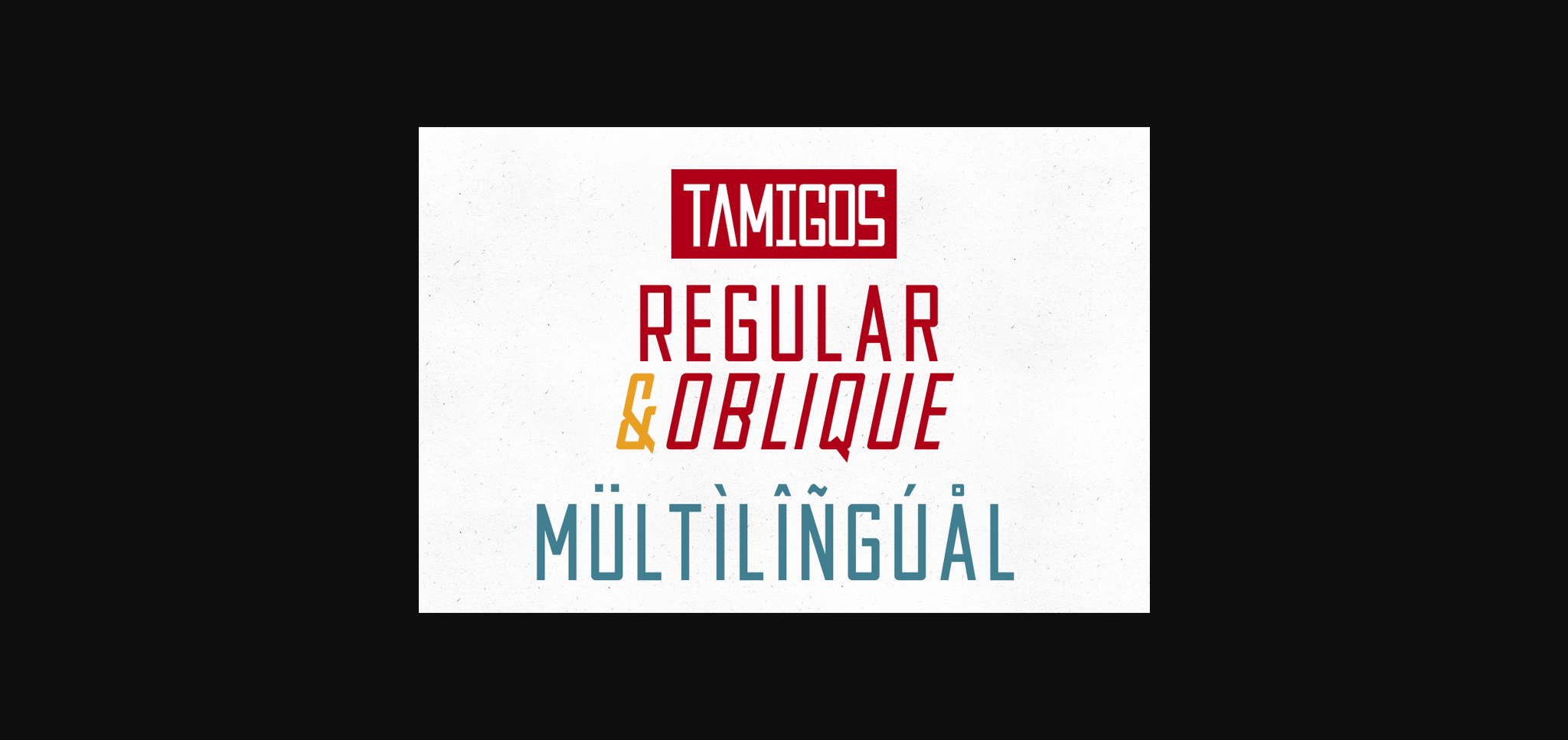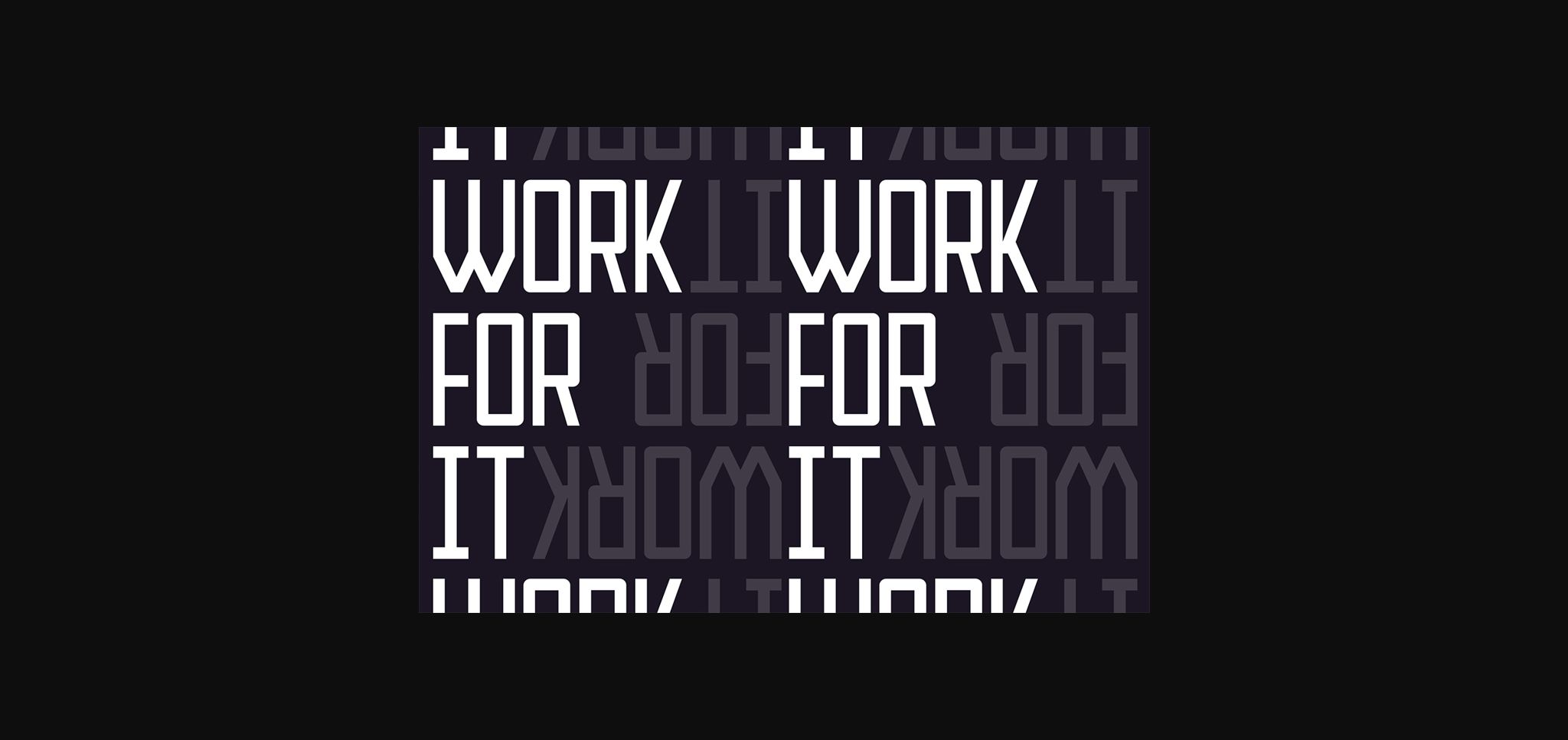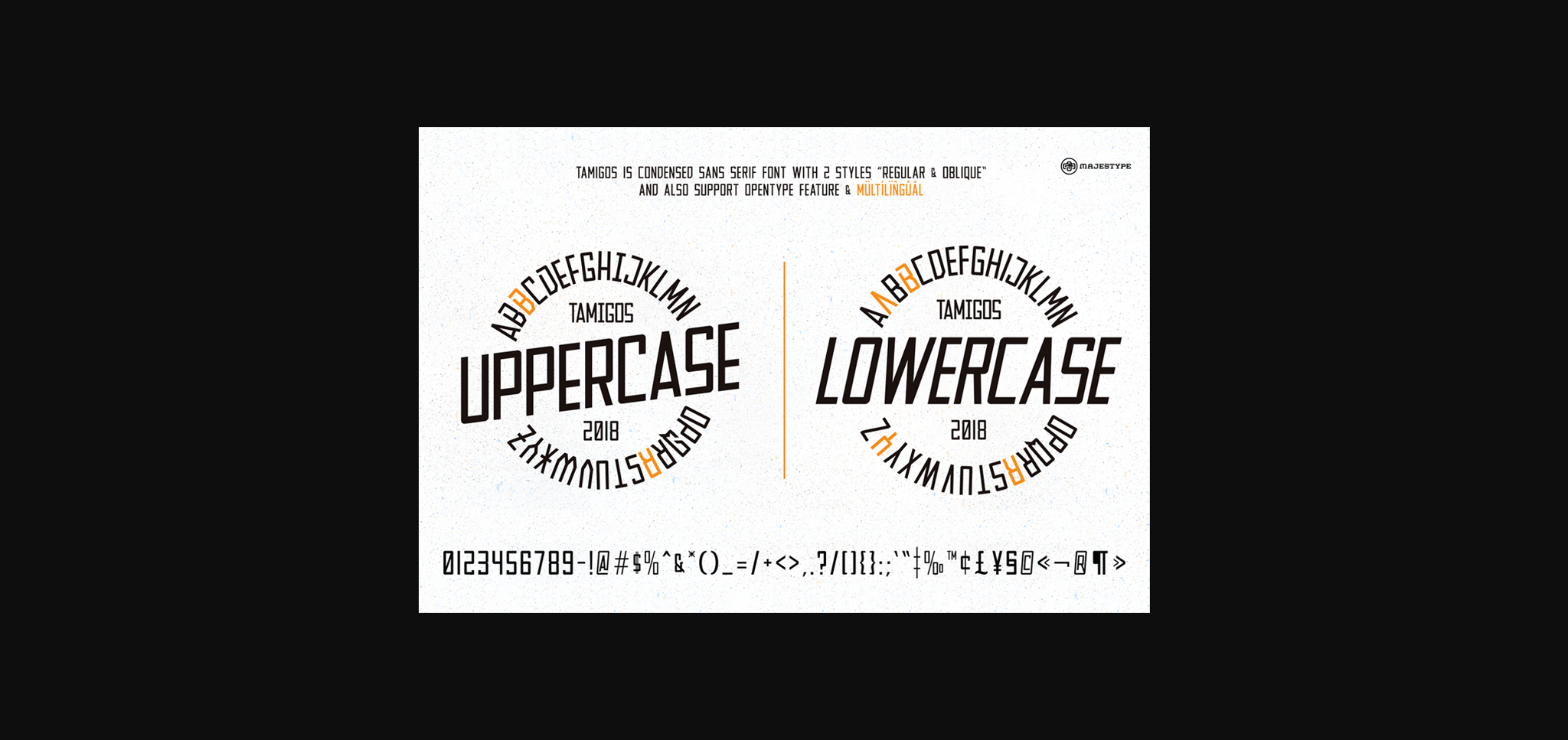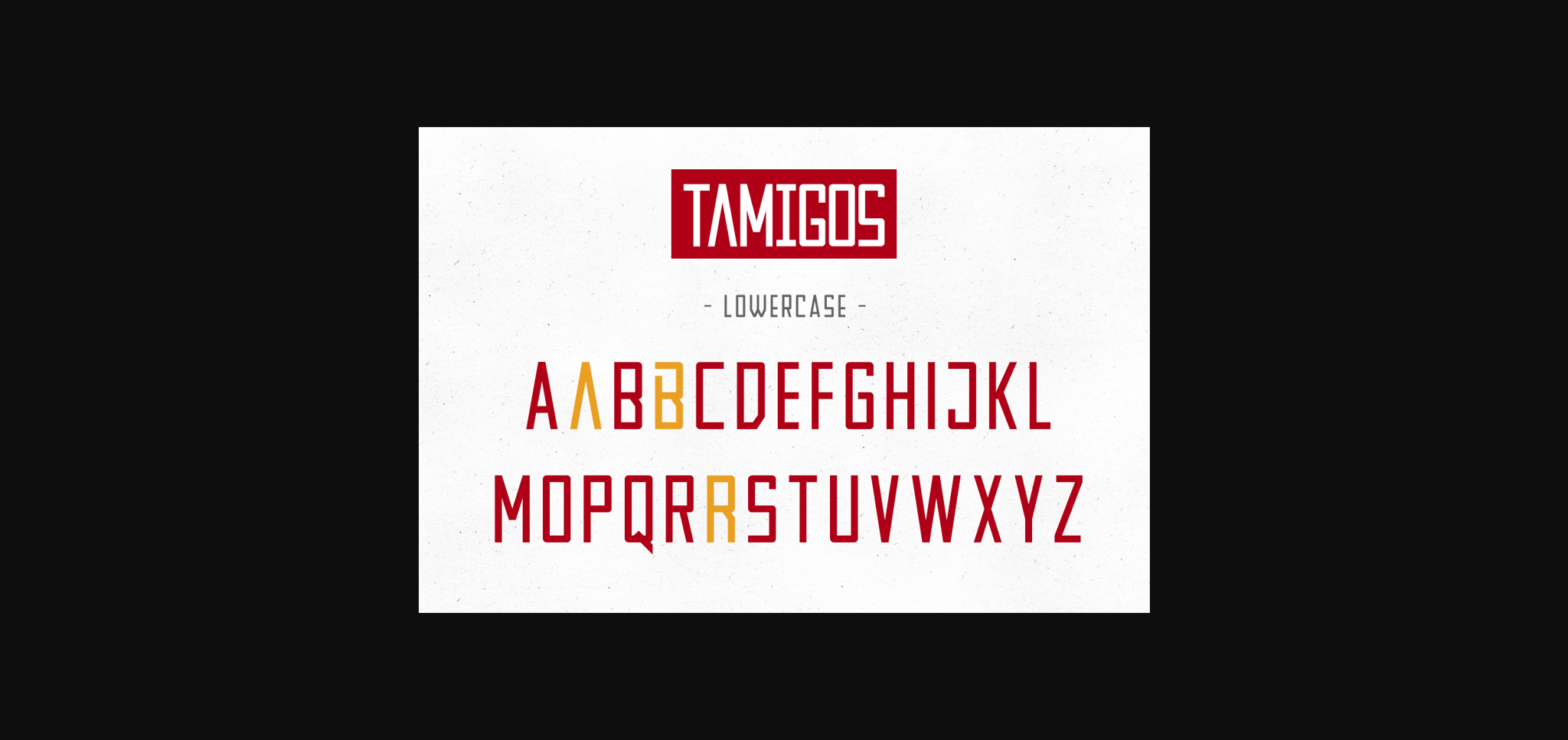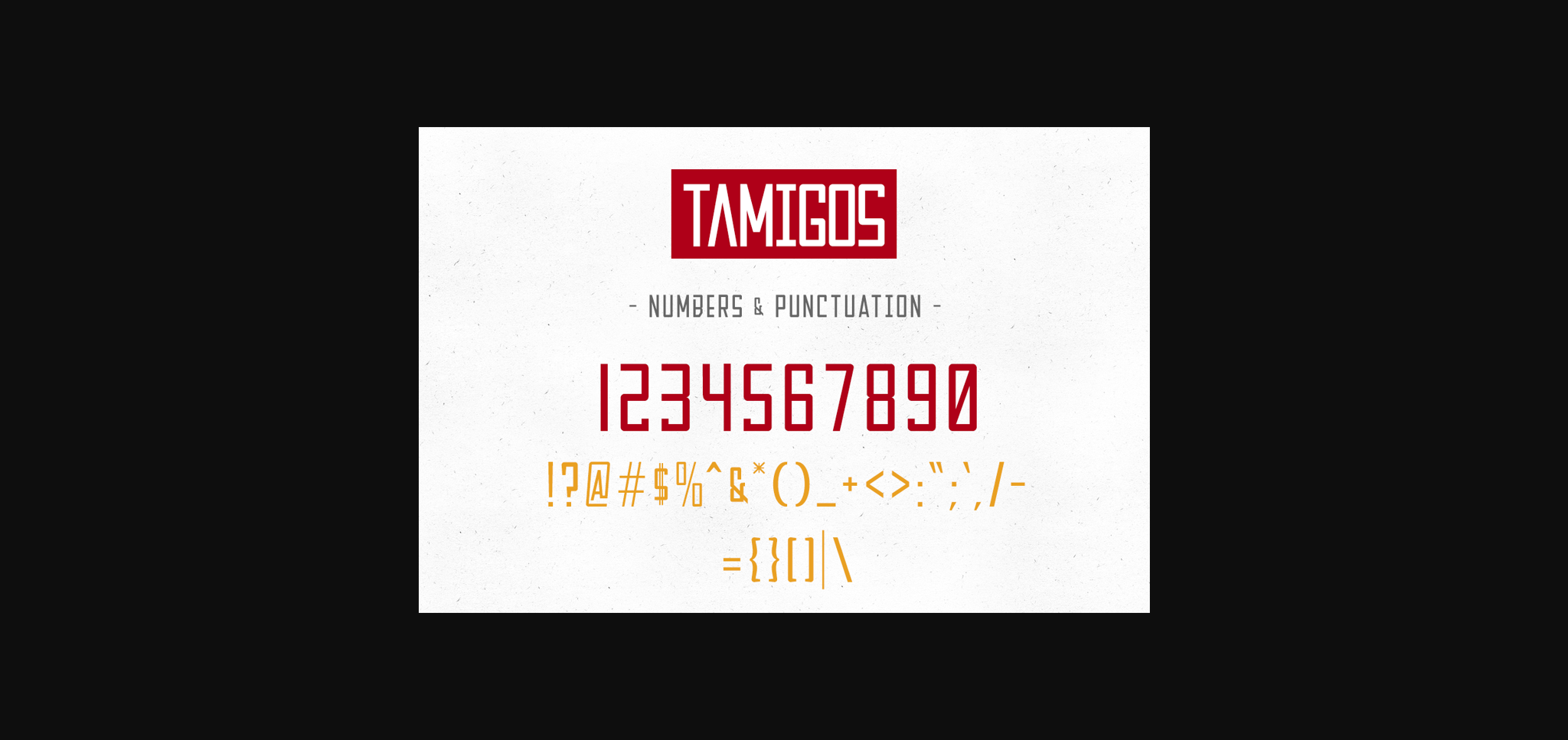
Tamigos Font
About Tamigos Font
Tamigos feels equally charming and elegant. Whether you’re looking for fonts for Instagram or calligraphy scripts for DIY projects, this sans serif font will turn any creative idea into a true piece of art!